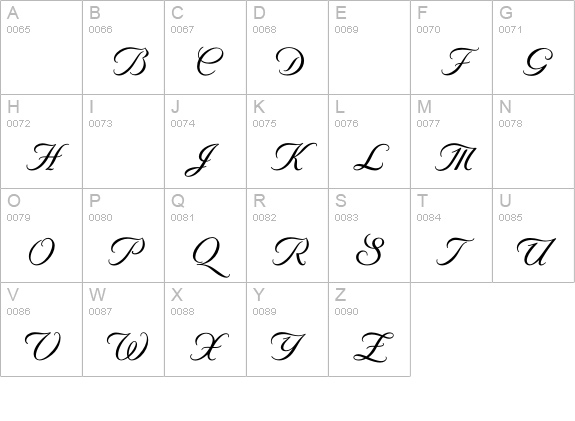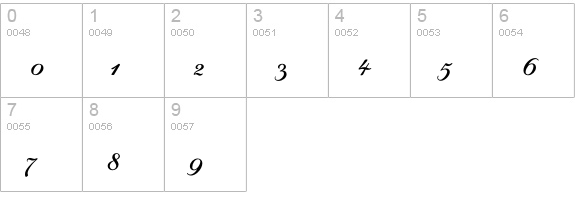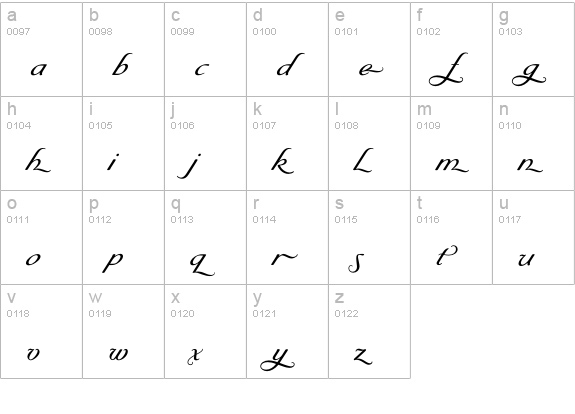
ByronMediumSwash Font Details
ByronMediumSwash font is a charming and elegant typeface that exudes a sense of sophistication and grace. Its delicate swashes and intricate details add a touch of whimsy and flair to any design. This font is perfect for creating invitations, greeting cards, logos, and other projects that require a touch of refinement. The best part is that ByronMediumSwash font is completely free to download at FontsMarket.com. Whether you are a professional designer or a hobbyist looking to elevate your projects, this font is a wonderful addition to your collection. Its versatility and timeless appeal make it a must-have for anyone seeking to add a touch of elegance to their designs. Download ByronMediumSwash font today and unleash your creativity with this beautiful and free typeface!